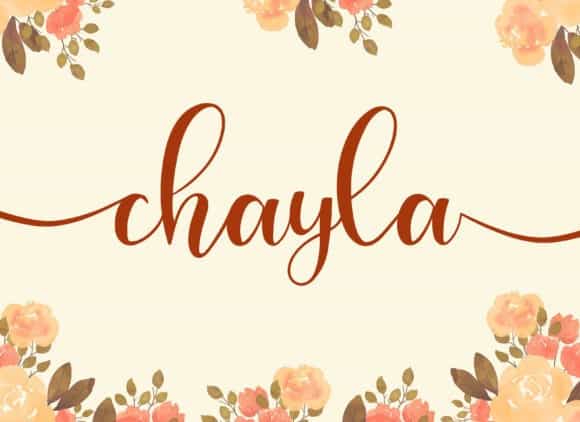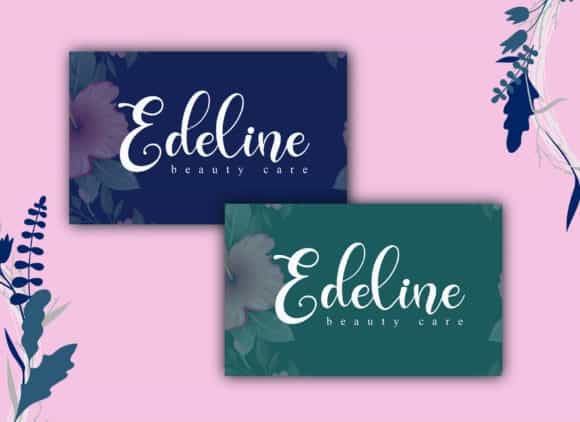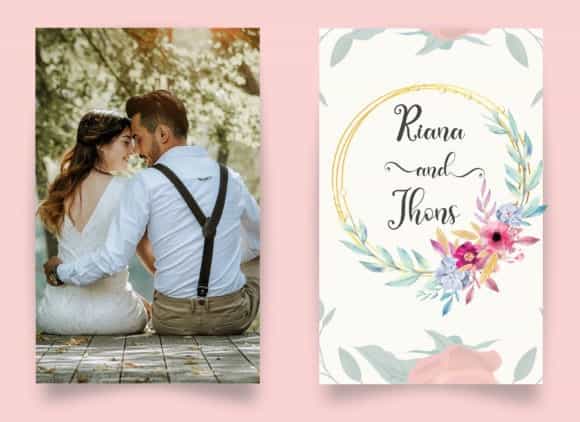
Chayla Font is beautiful and bewitching, but at the same time she is very up-to-date. This multifunctional script font can be used in many different situations starting from the greeting cards and finishing with the headlines, it is sure to make your next craft a very romantic one.